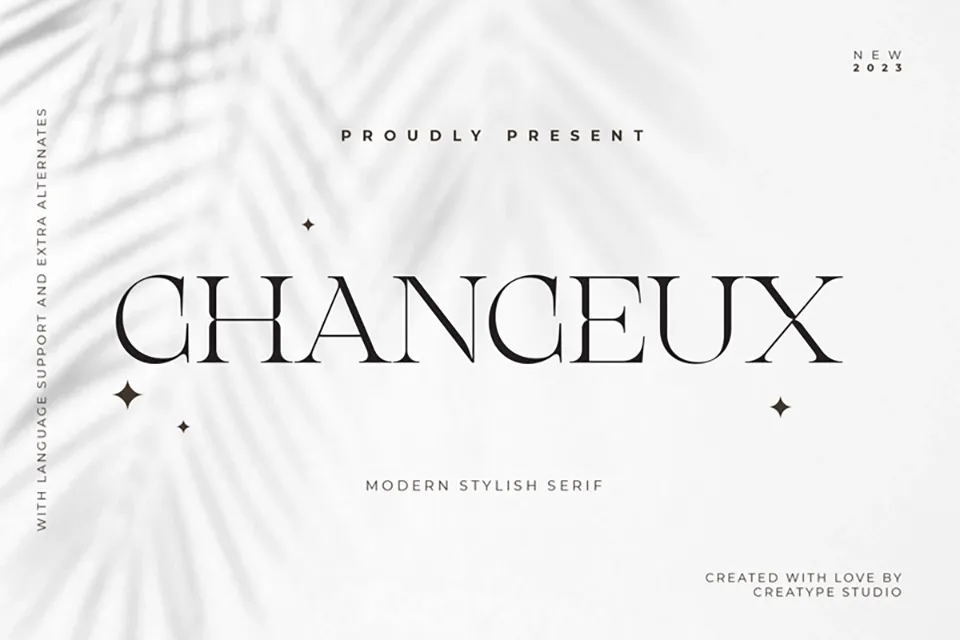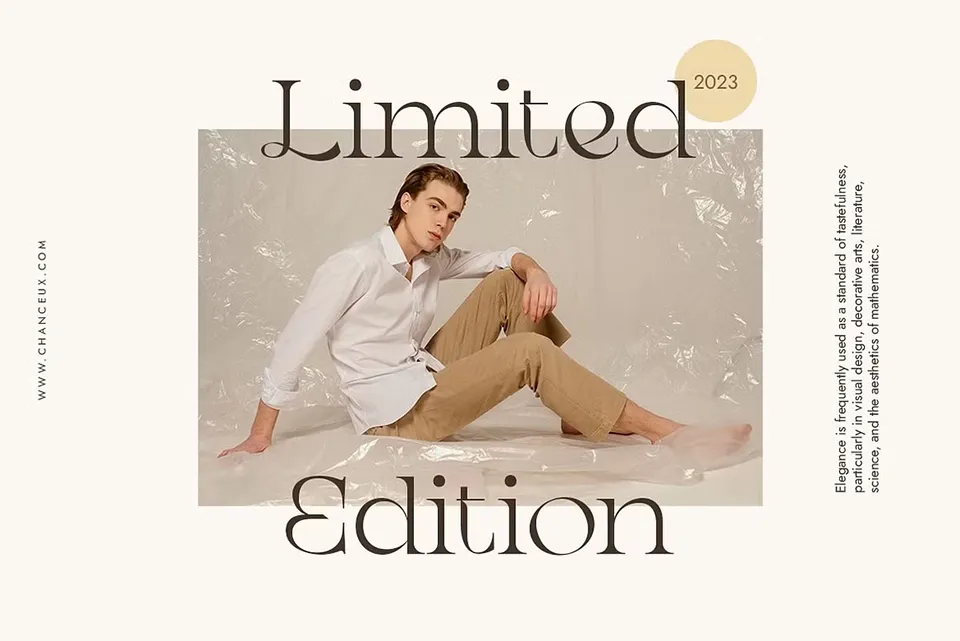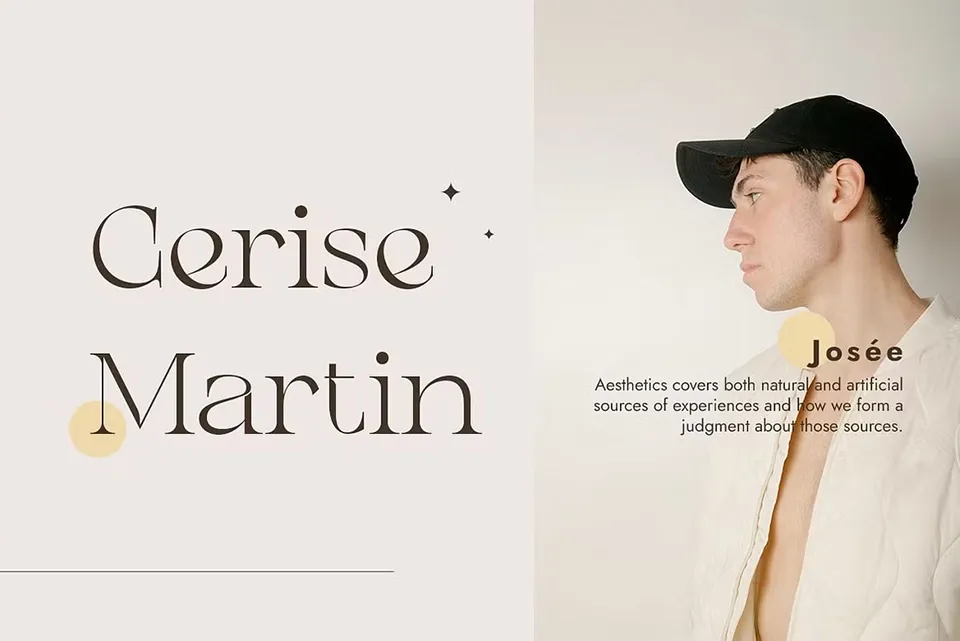
Chanceux Font
Chanceux Font is a modern stylish serif typeface designed to bring elegance and sophistication to your creative projects. Inspired by oldstyle serif fonts with high-contrast letterforms, Chanceux Font features flamboyant details that make it ideal for branding, logos, wedding designs, social media posts, advertisements, product packaging, labels, photography, invitations, stationery, and any project that needs a refined, handwritten touch. The font includes a wide range of glyphs, ligatures, alternates, and multilingual support, making it versatile and accessible for various design needs.